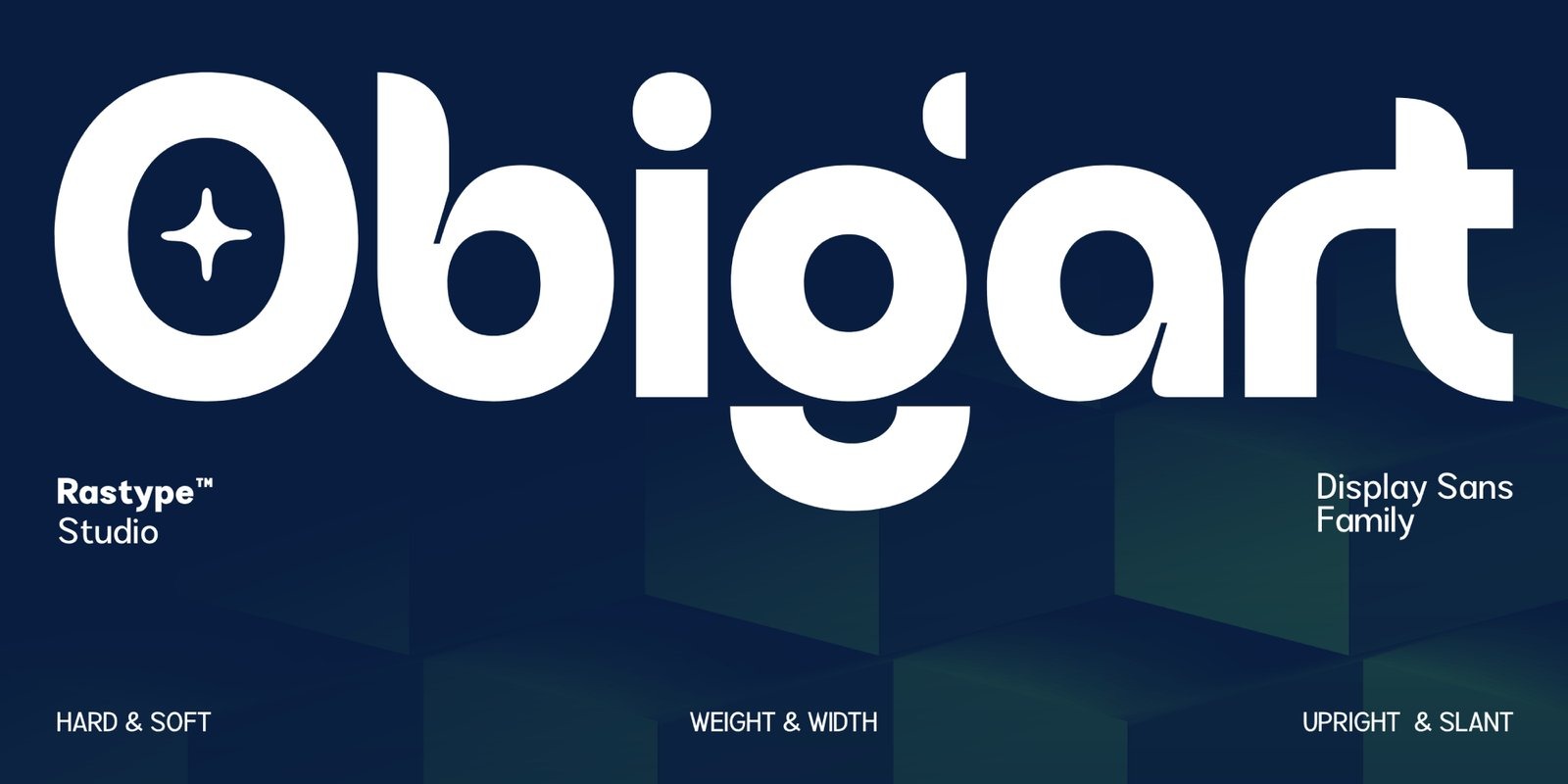
Obigart – Diplay Sans Serif Font Family
Obigart – Diplay Sans Serif Font Family is a distinctive and expressive font crafted to bring personality, structure, and creative energy into your projects. Obigart is a bold and futuristic display sans font family designed to create a strong visual statement. Built with ultra-rounded shapes, geometric precision, and smooth modern curves, this typeface delivers a playful yet professional appearance with excellent readability. Ideal for branding, posters, headlines, packaging, technology themes, editorial layouts, and contemporary visual identities. Obigart comes with multiple weights, widths, angles, and edge styles, giving designers maximum creative flexibility. Fully supported with variable font files, Obigart allows seamless customization and dynamic typography control for modern design workflows.